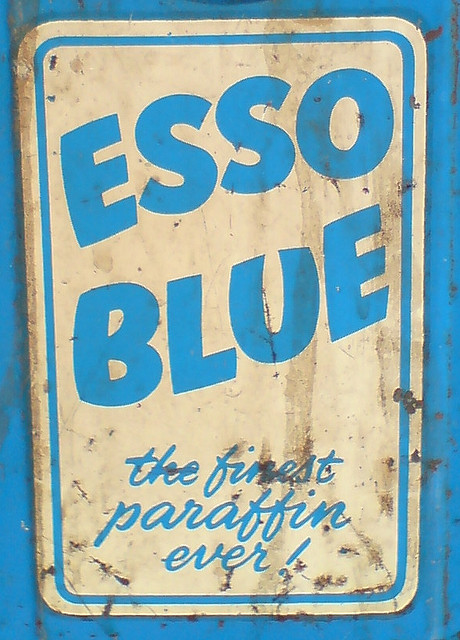
• Font Required (your gonna love this one)
A Long shot I know, but can anyone recognise this font? Got a customer who needs this sign recreating and wants the exact font matching, I’ve tried it on wordmark but can’t match it so if anyone else has a vague idea that would be great.
is it clairvoyant 😮 to be honest im not lovin it at the moment
how accurate does it need to be?? im not sure its a font more likely a hand painted jobby.
Anyhow if recreating it scan the main logo and use brush script for the text below that will get you close (and upset Jill 😮 she doesnt like brush script)
Yeah It’s very simular to brush script which I’ve used for the bottom bit, was going o trace the logo if it comes to it. The guys is using it as a stencil so need to get it something like. I’ll pop a pic up when i get it finished see what you think.
A&S Bogie is sort of similar to that bottom one.
Maybe Mission Script would be nice too.
It’s nothing like Brush Script, in my opinion
(thank God)
Top would be simple to trace.
BOM BOM BOM BOM…ESSO BLUE…
my dad would chant this advert…